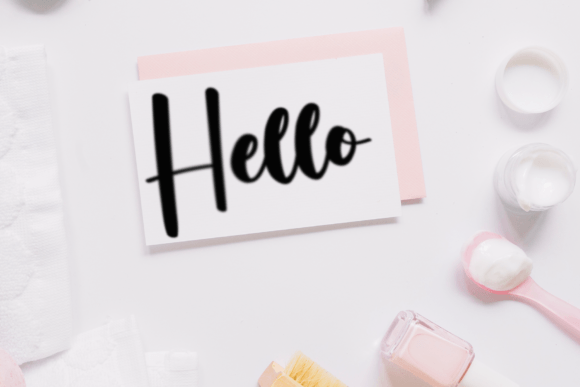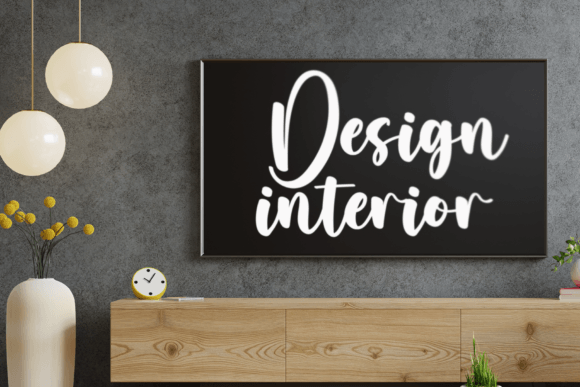
About Rain Font
“Rain” is a stunning handwritten font known for its elegant and curvy lines. This font has the power to make your work stand out with its unique and graceful aesthetics. “Rain” is perfect for a wide range of design applications, including product packaging, branding projects, magazine covers, social media graphics, wedding materials, or any project where you want to convey a sense of beauty and elegance.
The font’s gorgeous and curvy design adds a touch of sophistication and charm to your creative work. Whether you’re designing for print or digital media, “Rain” can enhance the visual appeal and memorability of your designs.
In the world of design, fonts play a crucial role in conveying style, mood, and visual identity. “Rain” excels in these aspects by offering a handwritten style that is both elegant and versatile. Its aesthetics infuse your designs with a sense of beauty and grace, making them engaging and unforgettable.
In summary, “Rain” is more than just a font; it’s a gorgeous design tool that can elevate your projects to a new level of elegance and style. Its elegant and curvy lines make it an ideal choice for designers seeking to create work that is both beautiful and impactful. Whether you’re an experienced designer or just starting your creative journey, “Rain” is the font that can help you create designs that are truly stunning and captivating.